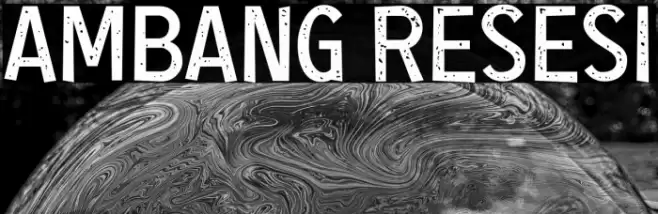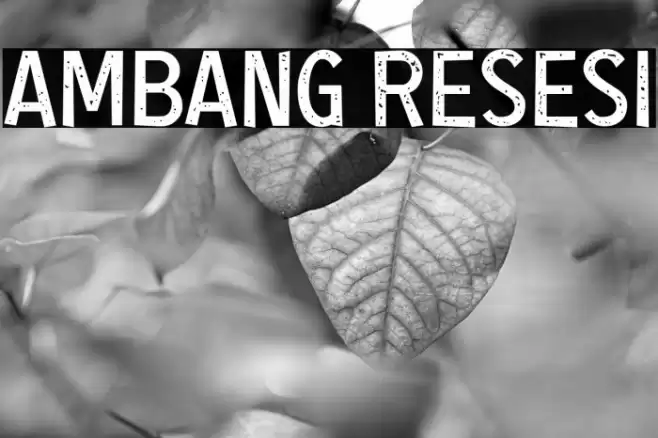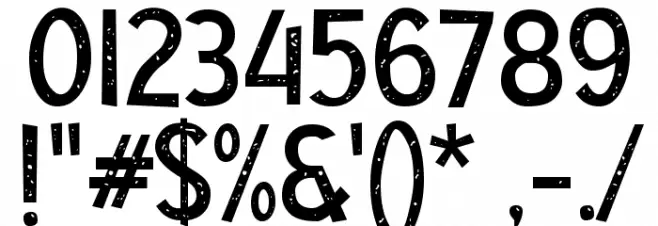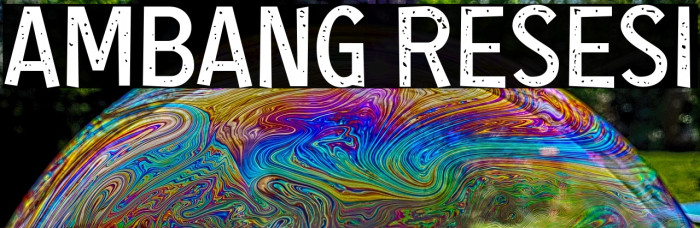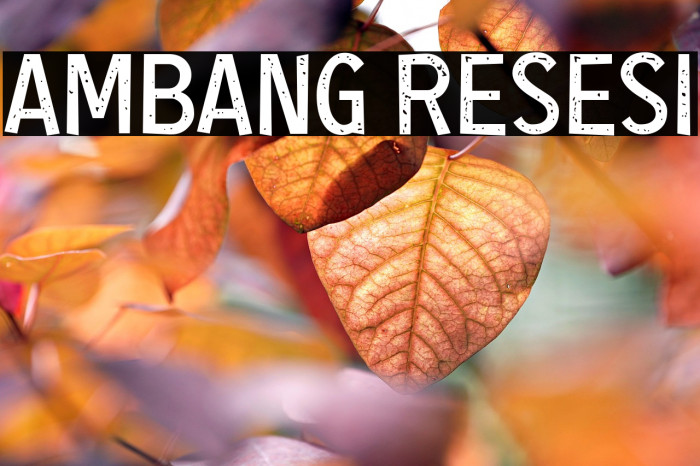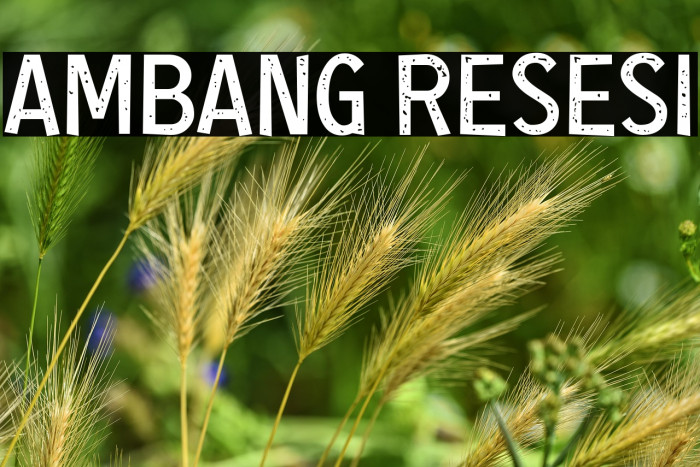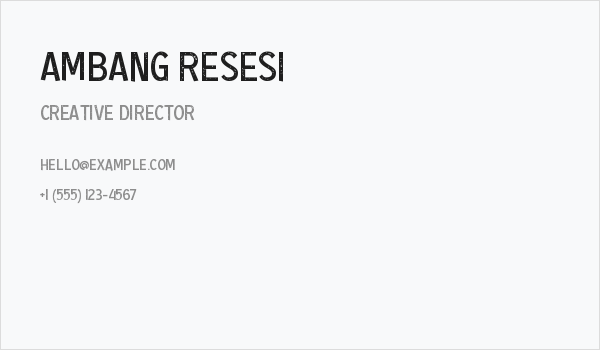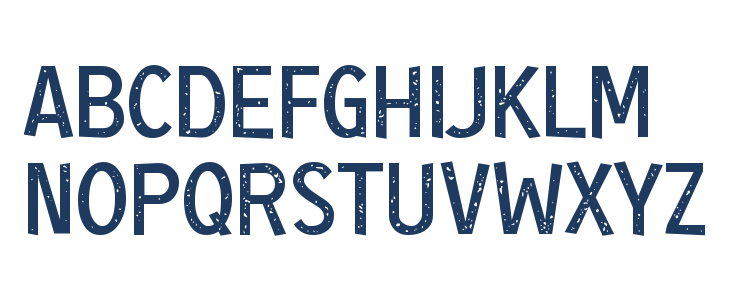
Ambang Resesi Font
Ambang Resesi Description
This font features a bold and modern design with a distressed texture that gives it a unique, worn appearance. The uppercase and lowercase letters are consistent in style, maintaining a clean and geometric structure. The numbers and special characters follow the same design principles, ensuring uniformity across all glyphs. The font's bold weight and textured finish make it stand out, adding a touch of ruggedness and character. Its sans-serif style is straightforward yet impactful, making it suitable for various creative applications.
A bold, modern sans-serif font with a distressed texture from Uncategorized fonts.
- Proposed Projects: Ideal for branding, posters, and headlines where a bold statement is needed. Its unique texture can enhance designs that require a vintage or industrial feel.
- Overall Style: Modern, Decorative